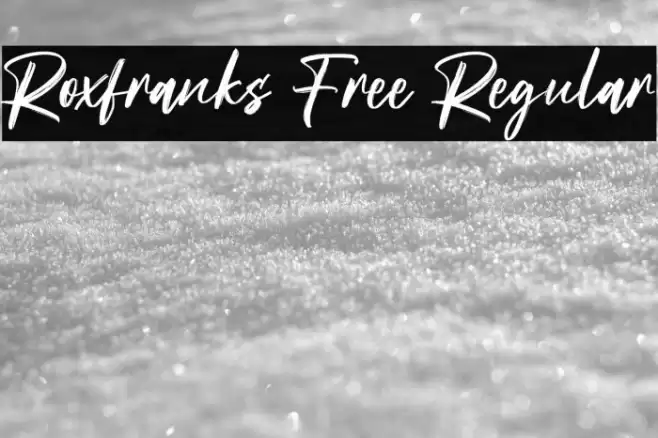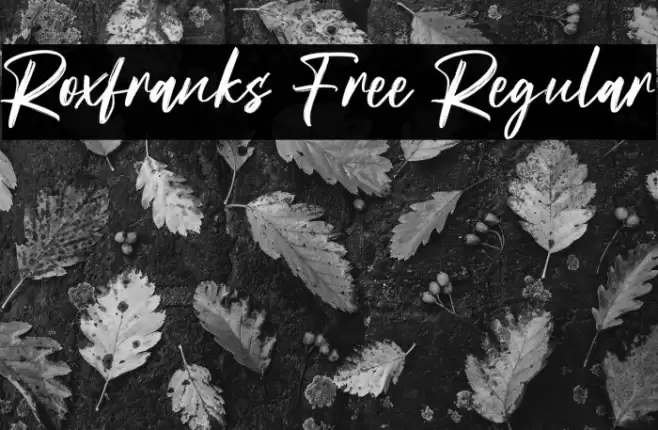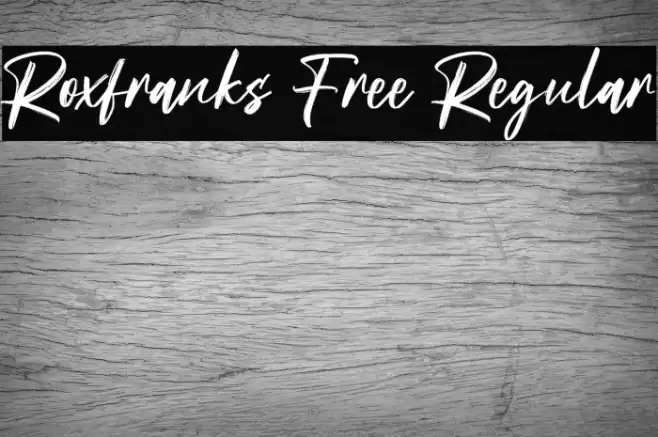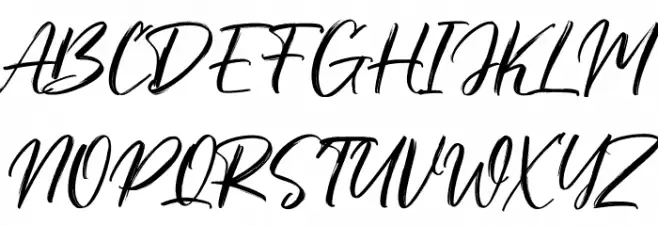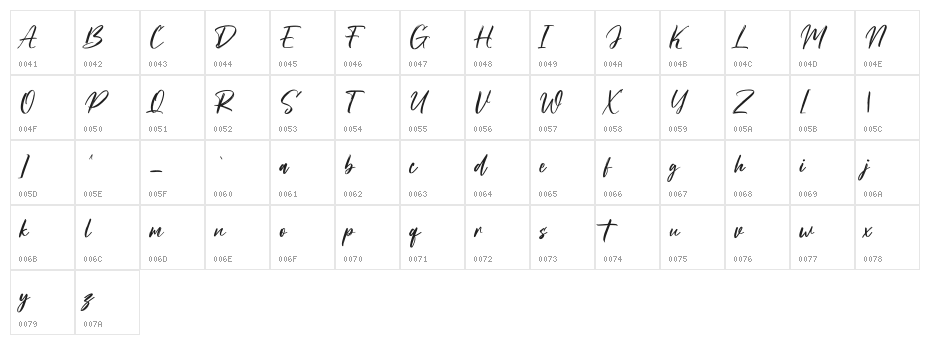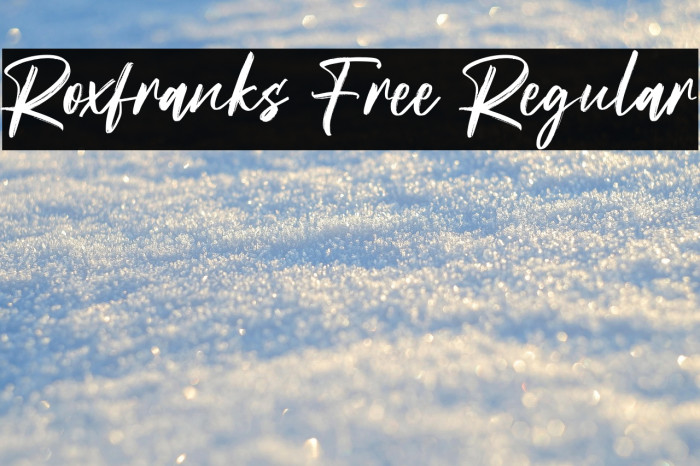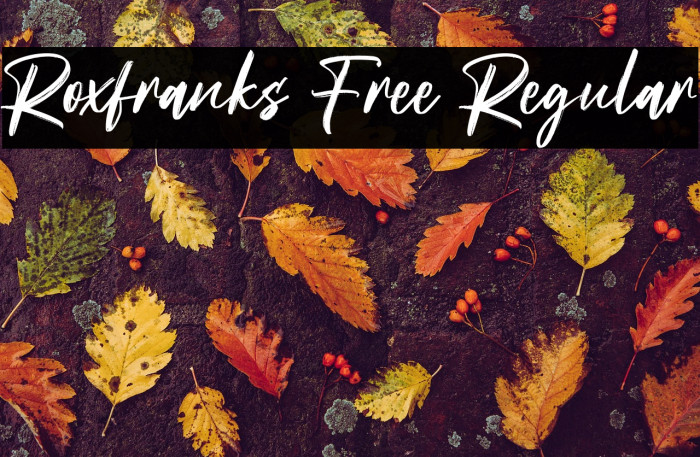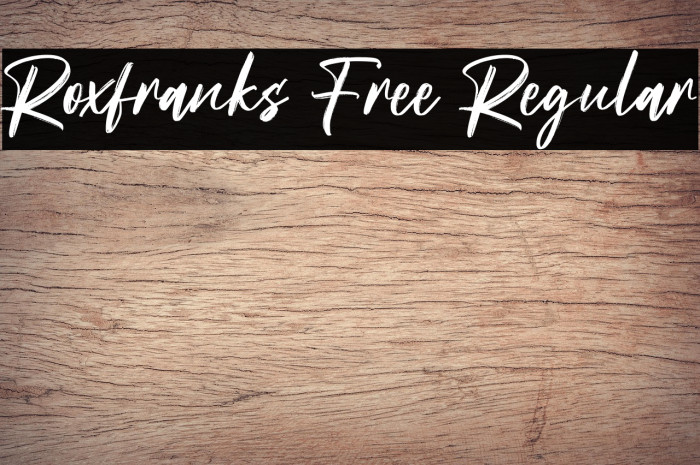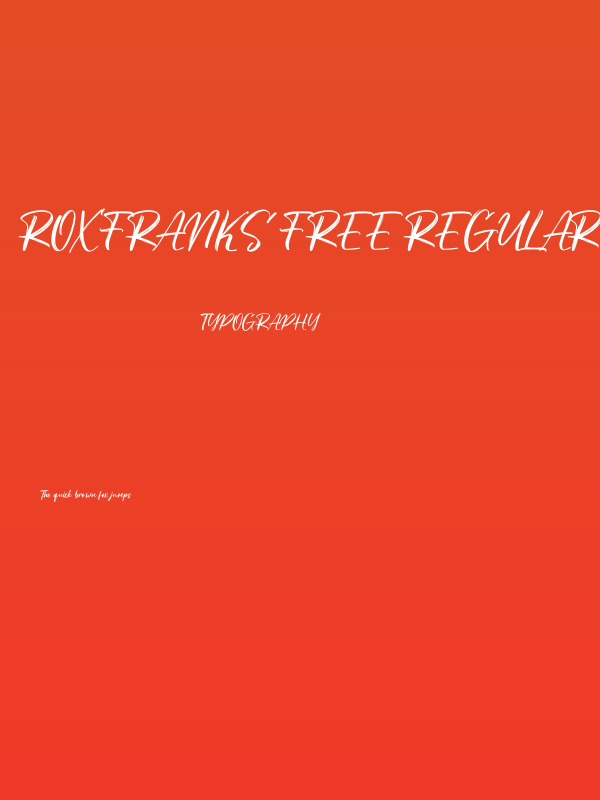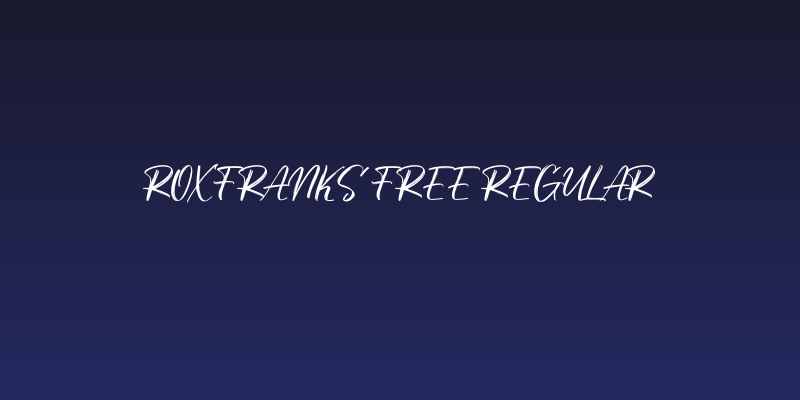
Roxfranks Free Regular Font
Roxfranks Free Regular Description
This font exhibits a dynamic and expressive handwritten style, characterized by fluid strokes and a natural flow. The letters are elegantly connected, giving it a cohesive and artistic appearance. The uppercase and lowercase letters maintain a consistent style, with a slight slant that adds to the font's energetic feel. The overall design is both stylish and legible, making it suitable for a variety of creative applications. The font's unique flair is enhanced by its varying stroke widths, which add depth and interest to the text.
A dynamic and expressive handwritten font with fluid strokes and a natural flow from Regular fonts.
- Proposed Projects: Ideal for wedding invitations, greeting cards, branding projects, and social media graphics.
- Use Case: Logos, Invitations, Social Media Graphics